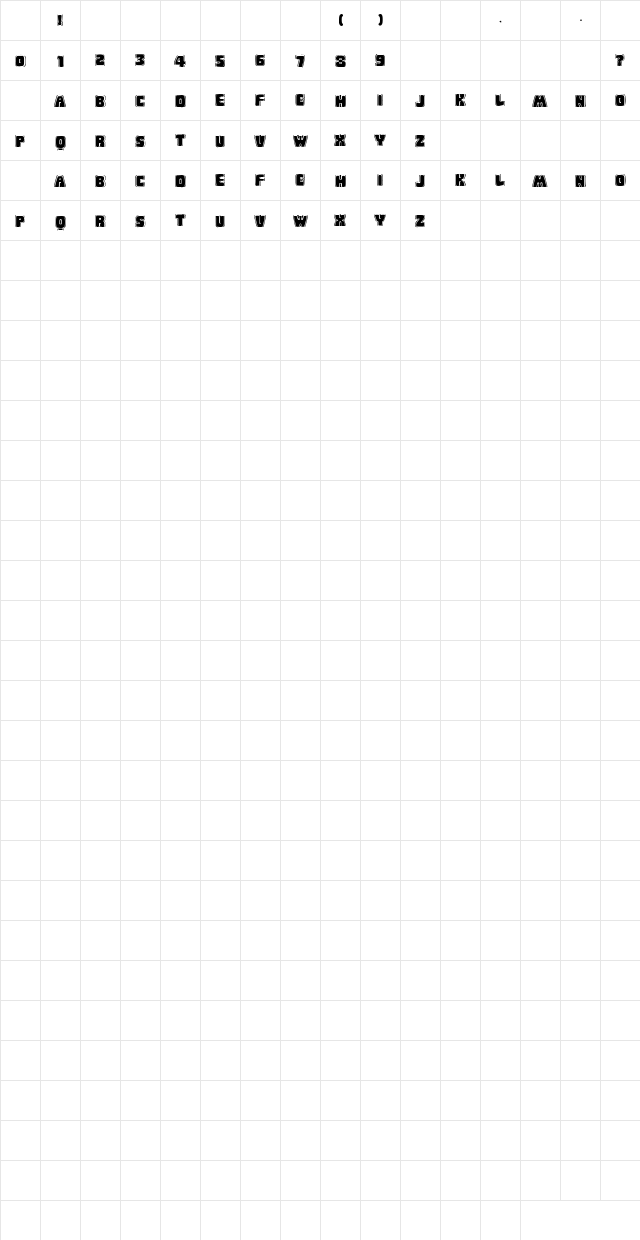
Baby Eskimo Kisses Black Free Font
Baby Eskimo Kisses Black
Baby Eskimo Kisses Family
Baby Eskimo Kisses Black
Design Context for Baby Eskimo Kisses
Baby Eskimo Kisses is a composed and adaptable typeface that performs quietly and consistently across a wide range of design contexts.